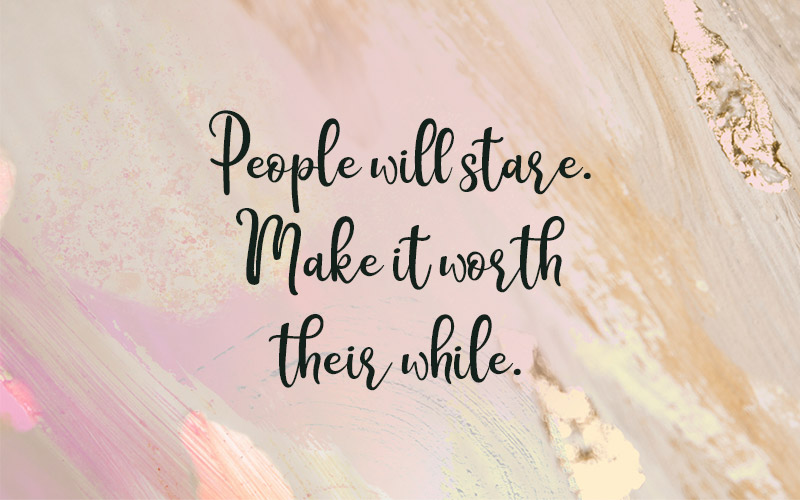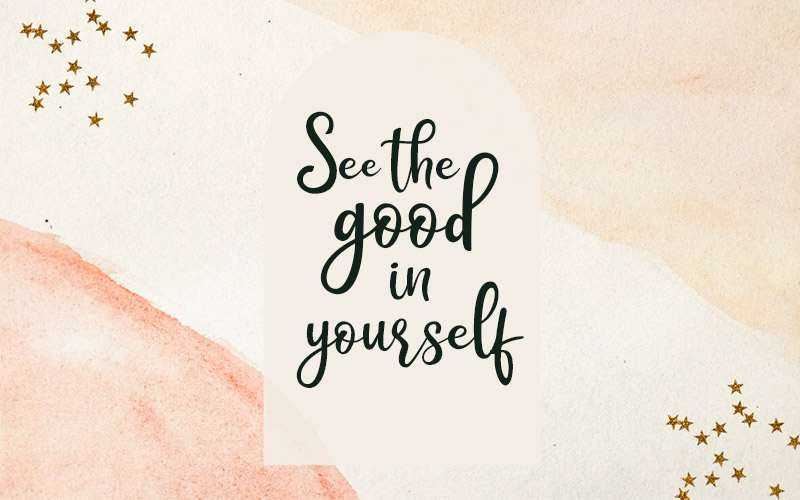
Rothena Chic Font Freebie
Introducing Rothena Chic Font – a stylish and elegant typeface that is perfect for adding a touch of sophistication to any design project. This font is the perfect choice for those who want to create a professional and high-end look in their designs.
Rothena Chic Font features a sleek and modern design that is sure to catch the eye of your audience. The font has a unique blend of thin and bold lines that create a beautiful contrast, making it ideal for logos, headlines, invitations, and more.